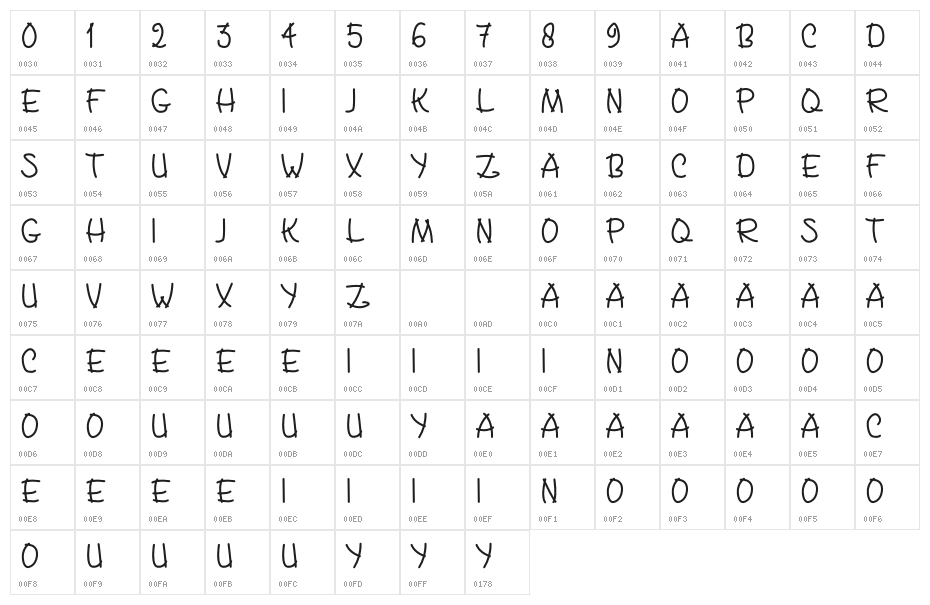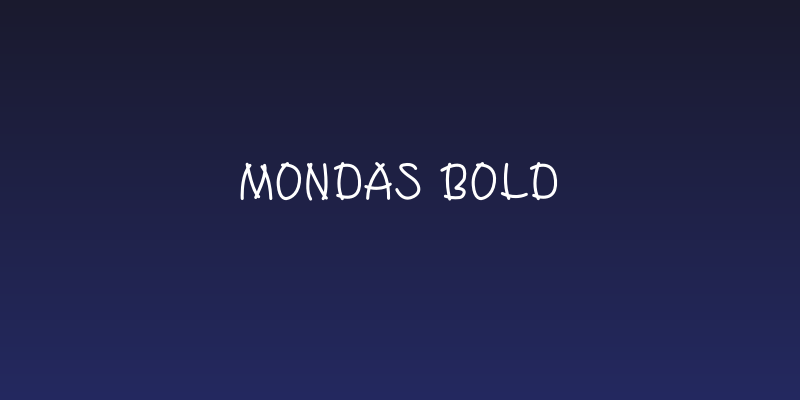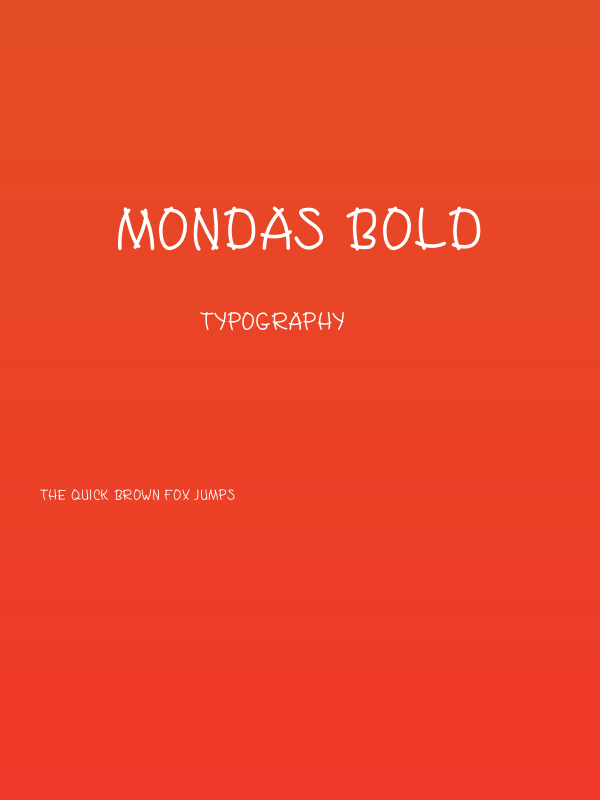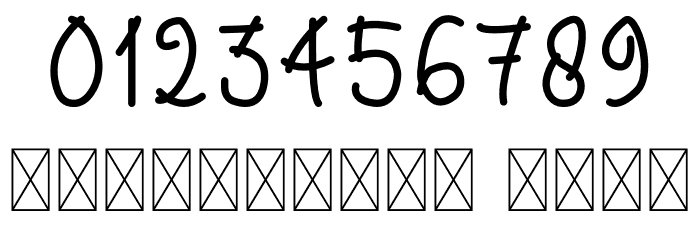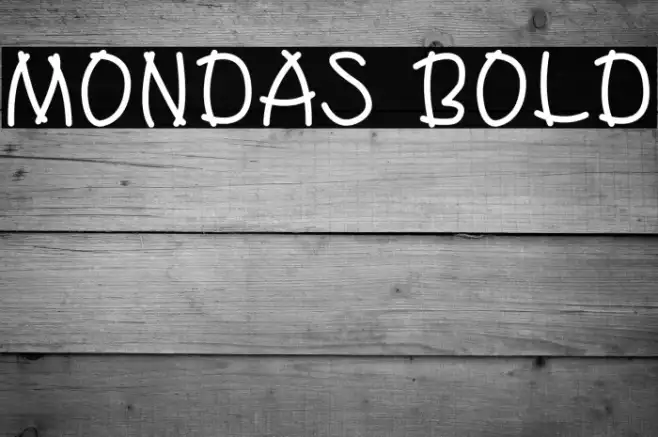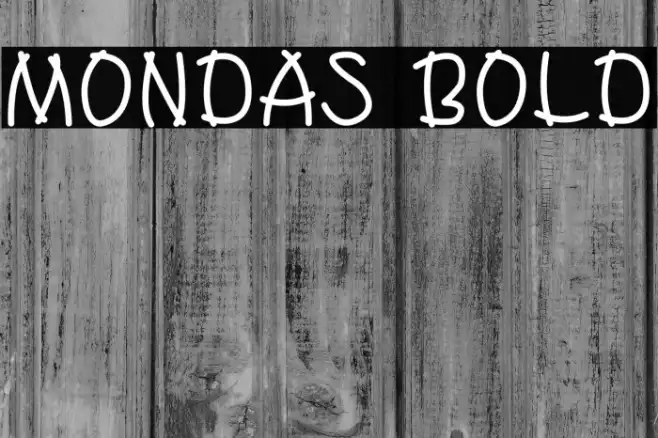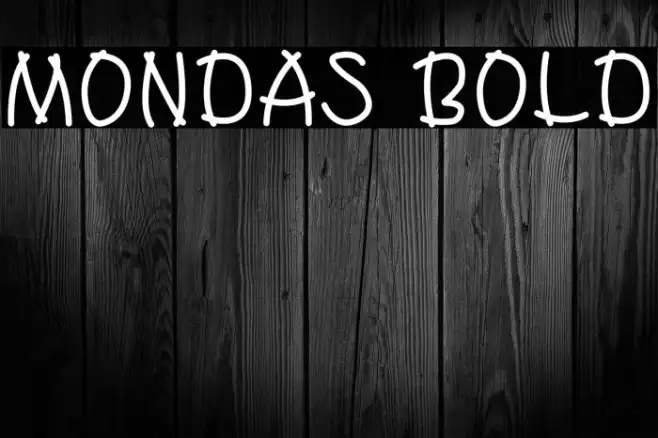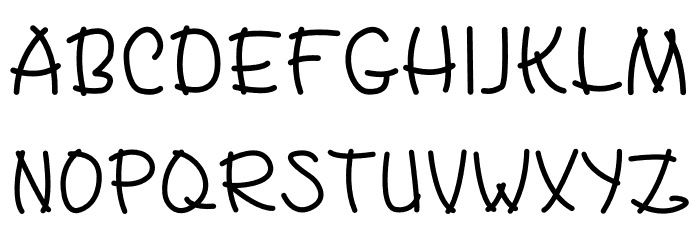
Mondas Bold Font
Mondas Bold Description
This font features a playful and casual handwritten style, characterized by its rounded and slightly irregular letterforms. The strokes are consistent in thickness, giving it a uniform appearance while maintaining a lively and informal tone. The uppercase and lowercase letters are well-balanced, with a slight slant that adds to the dynamic feel. The numerals are clear and easy to read, matching the overall aesthetic. The special characters are designed to blend seamlessly with the alphabet, ensuring versatility in various design contexts.